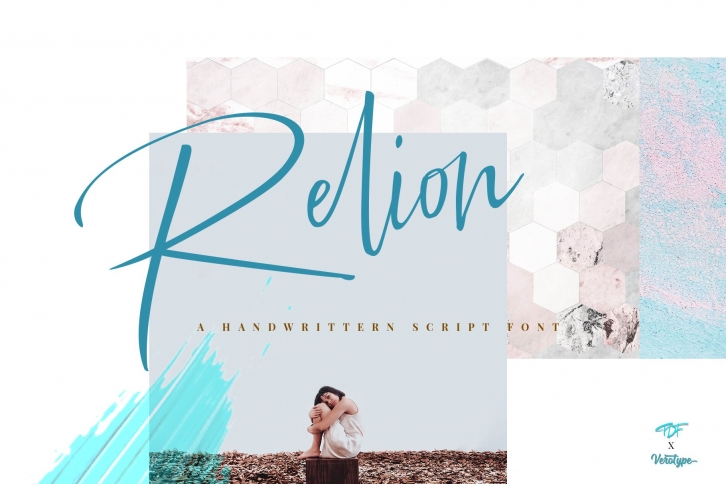
Relion Signature Script Font is a cute font handlettering thats fit for wedding project, fashion designer, photography service, instagram stories, natural product, coffee shop, branding.
Ciellda Signature Script Font font contains following ligatures:
ab arr bb cc ai ci ee ei ff fi gg gj gi gr hi hh ii ij dg dj dd at ath att and it jj ji et ass kk ll li lli ell mm nn oo oi ot pp rr ss tt uu ui ut vi yy iz zz xx Cr Cz Ci Gi
Relion Signature Script Font also includes full set of uppercase and lowercase letters, multilingual symbols, numerals, punctuation.